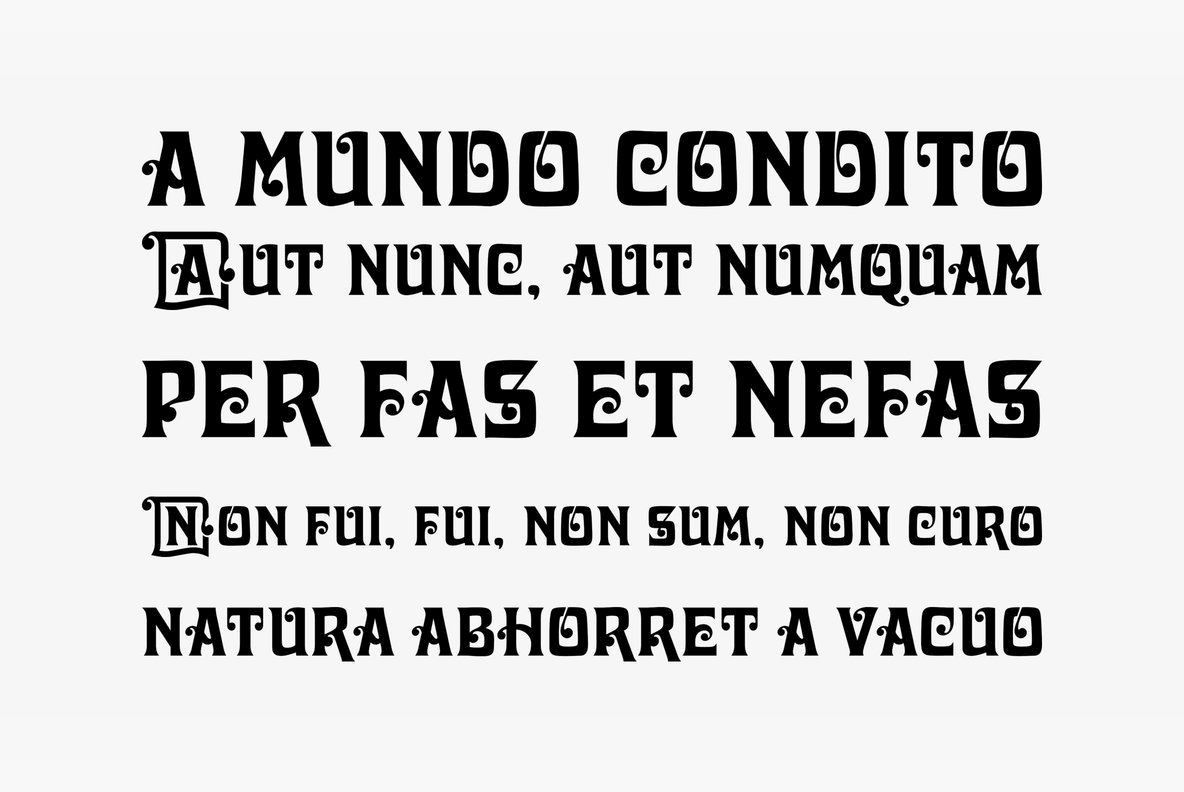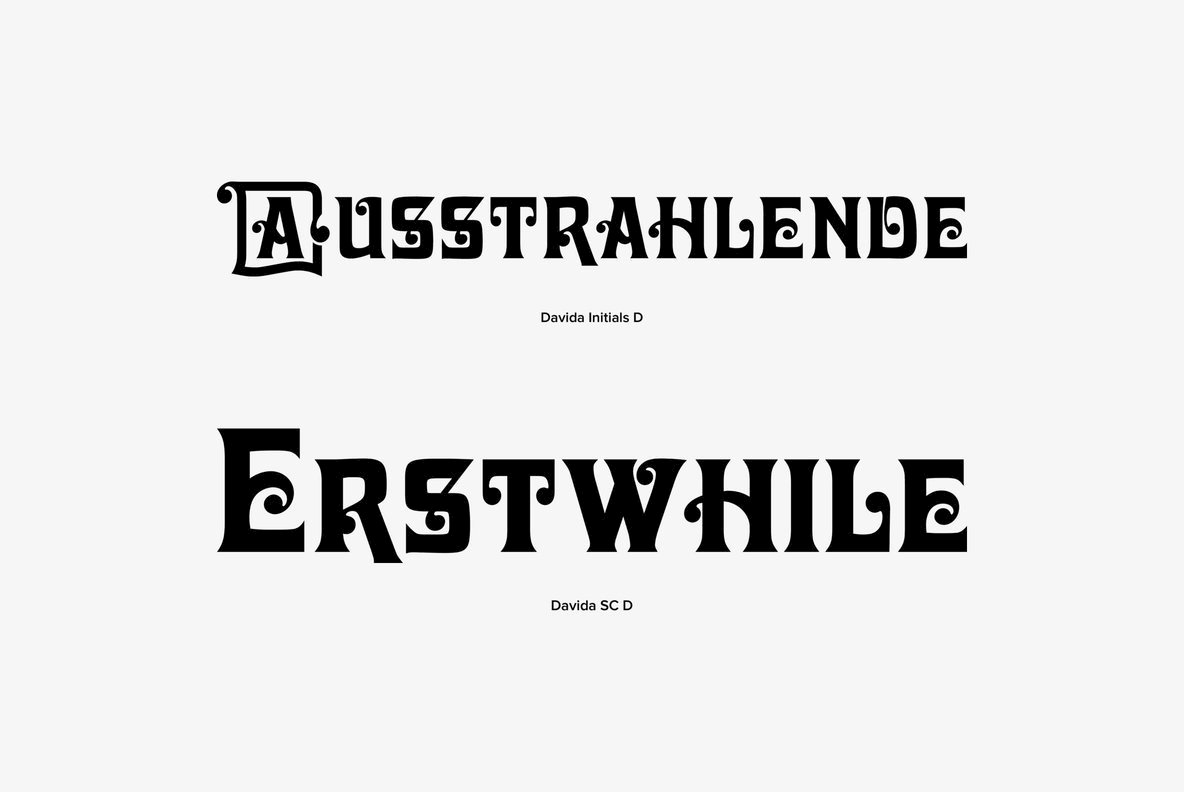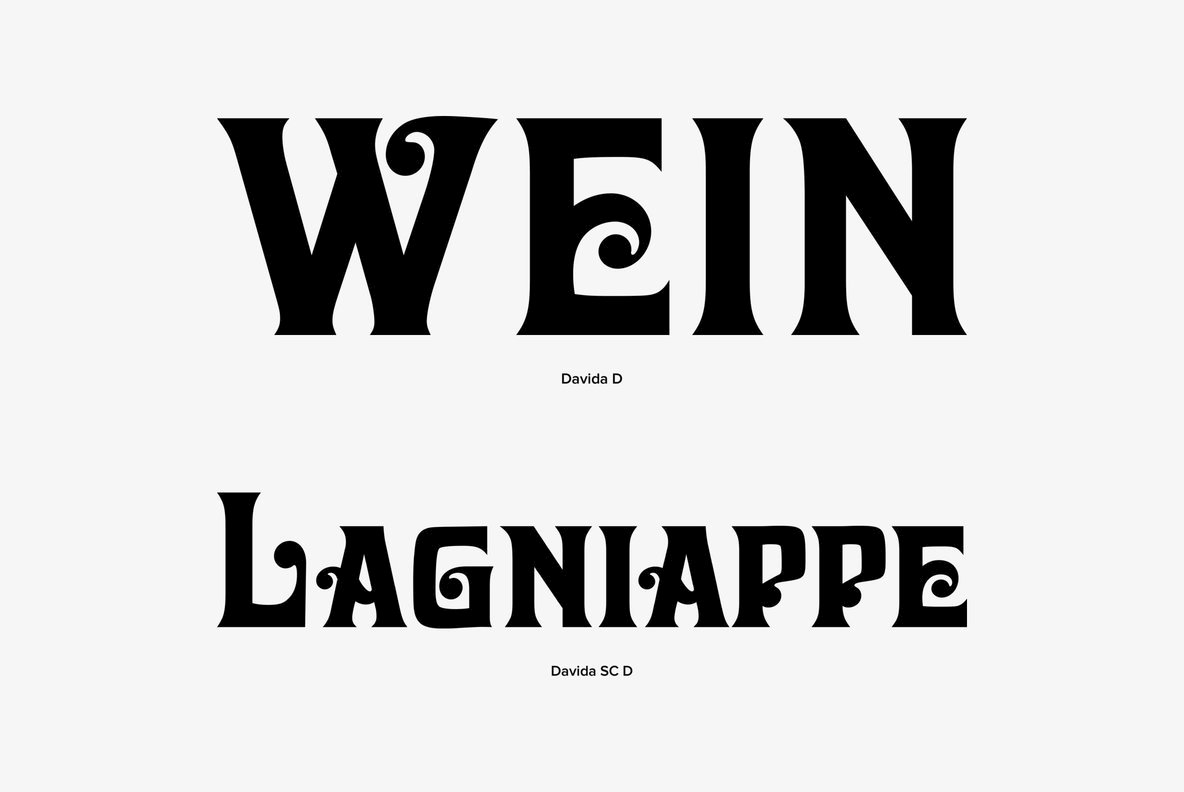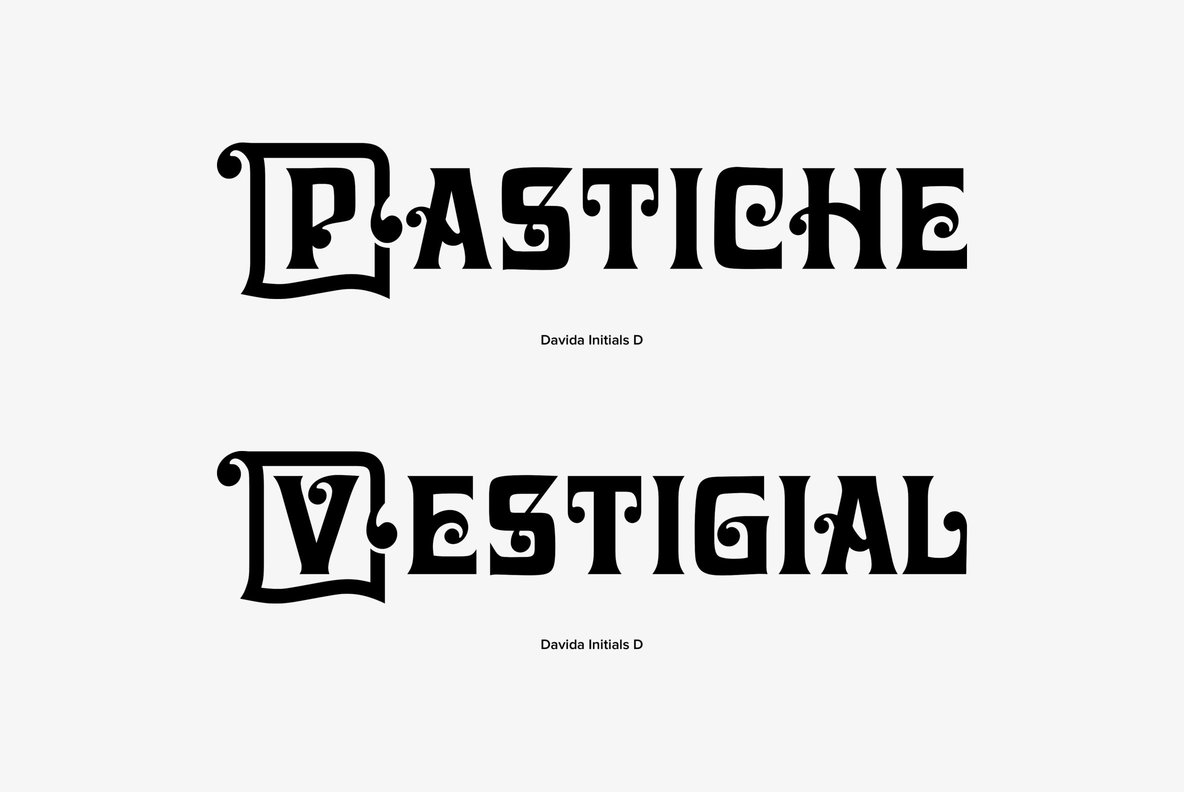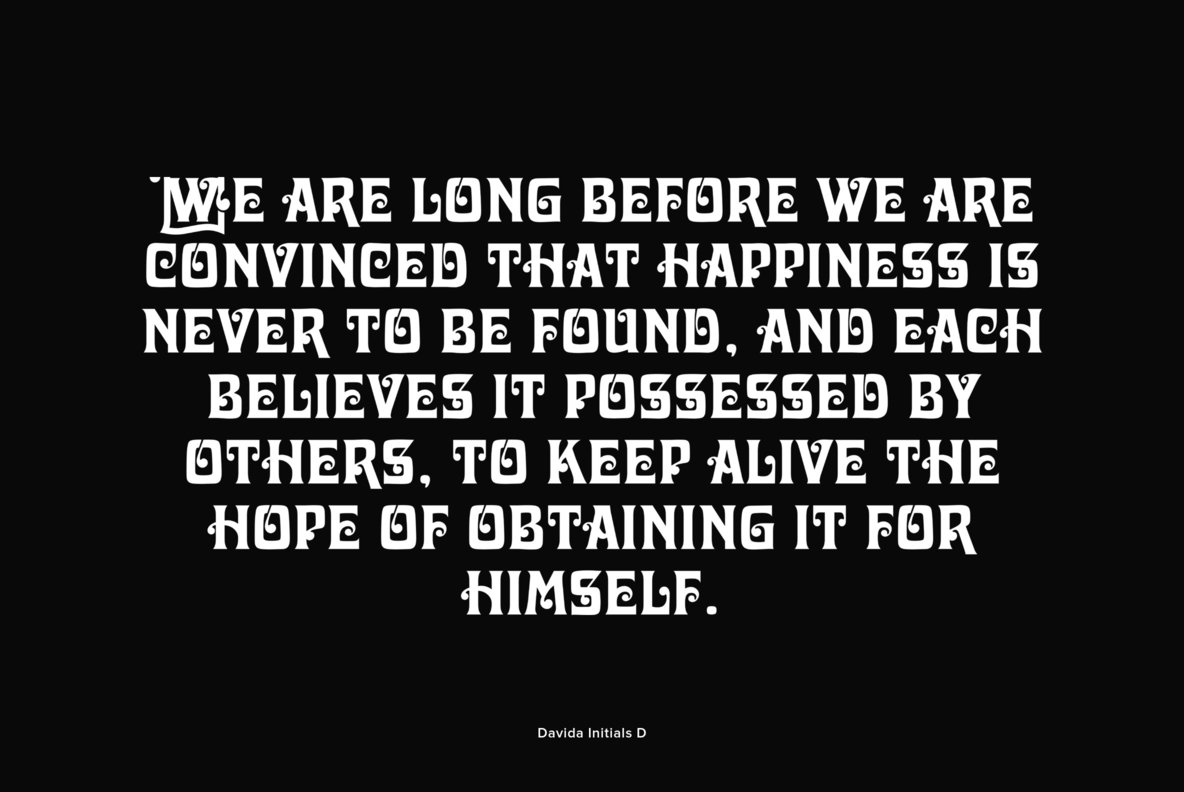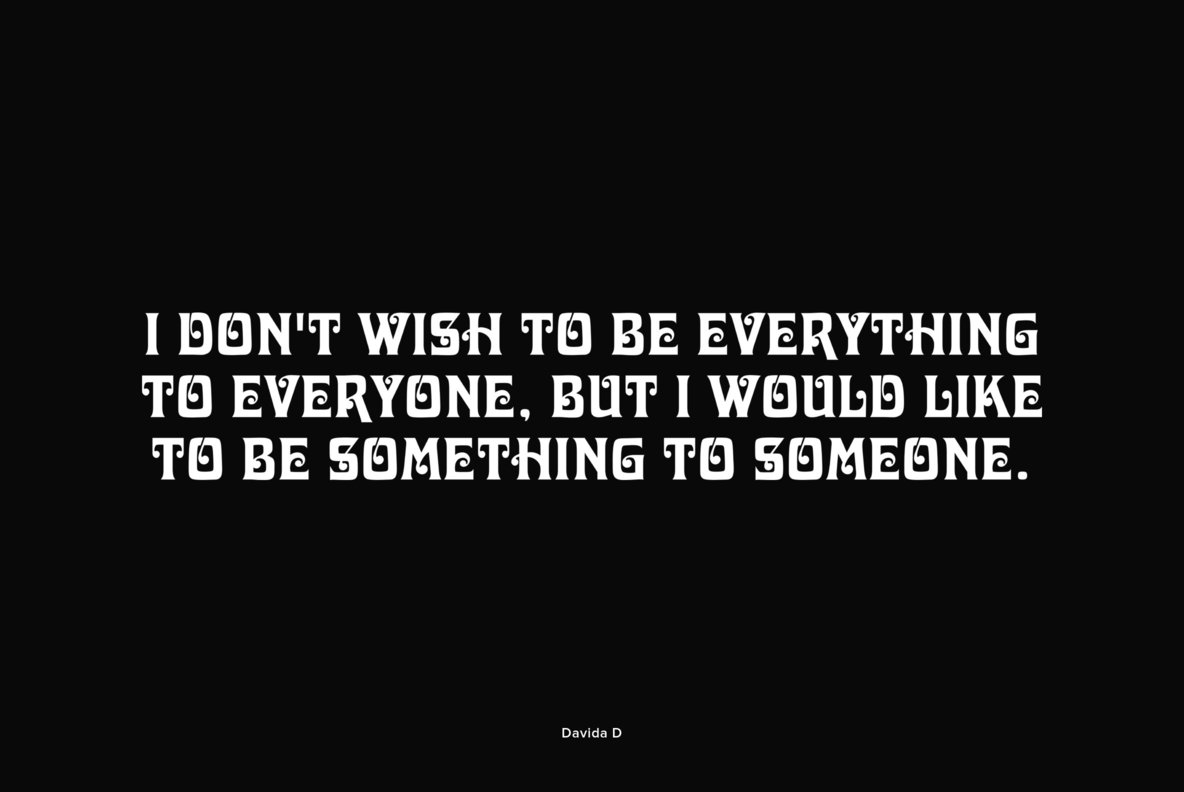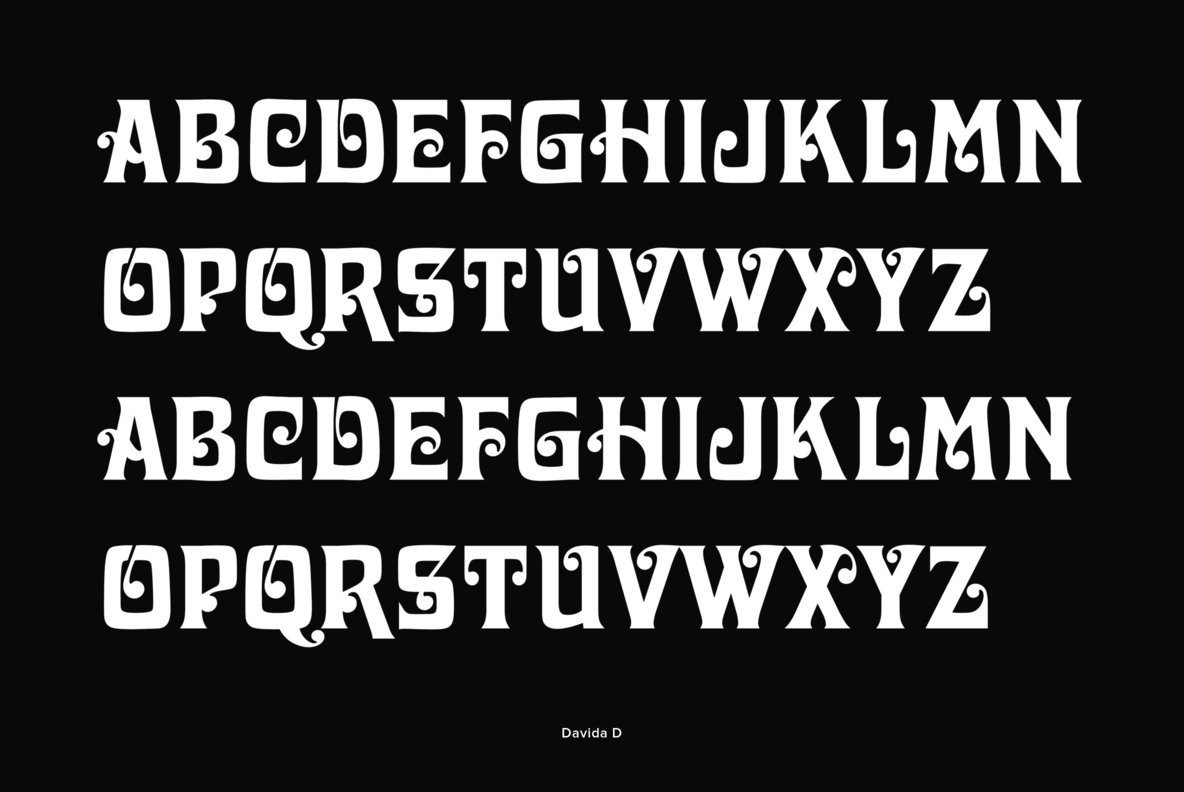
Designed by Louis Minott in 1965, Davida is a beautiful decorative font release by URW. Contains language support for West, East, Turkish, Baltic, and Romanian.